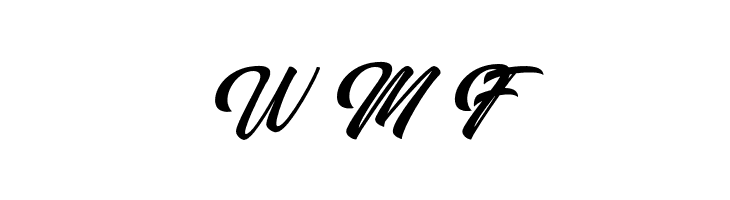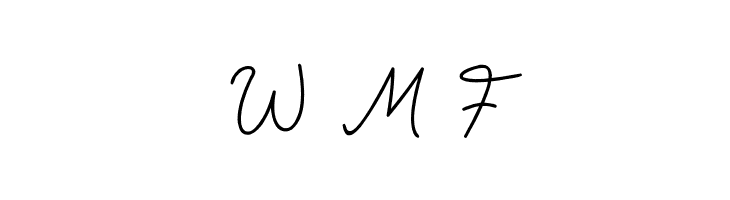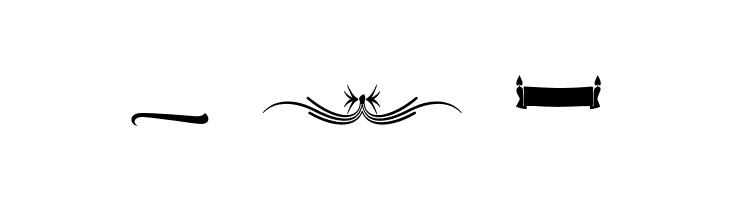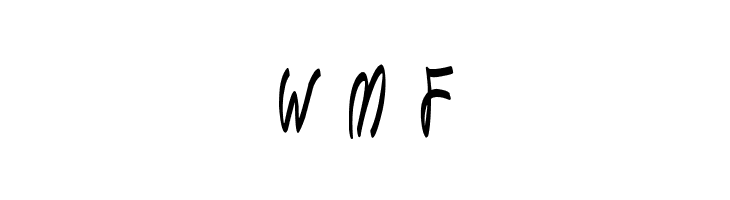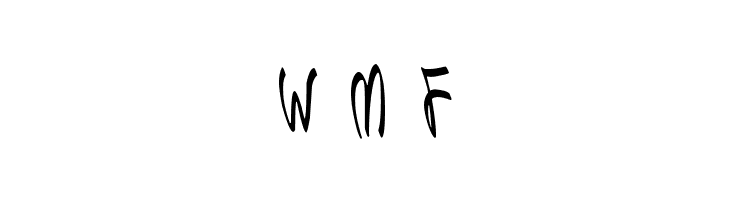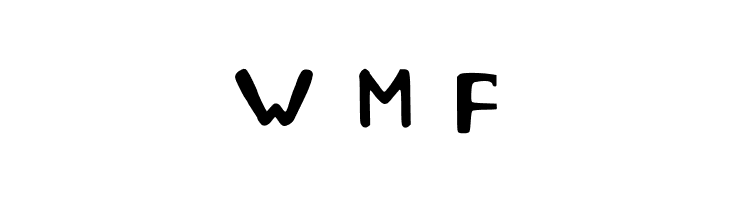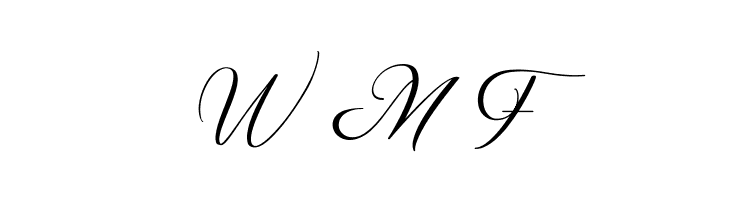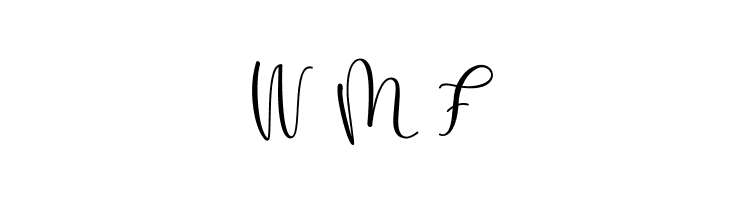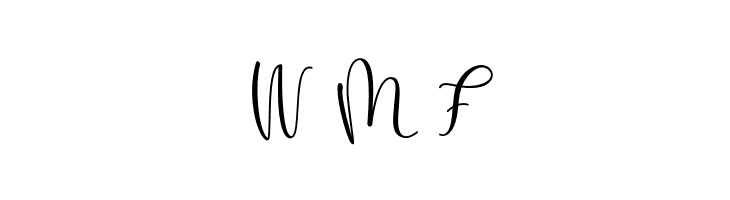
Hello Bunda Font
A playful, cursive font with a hand-drawn, whimsical style.
Restu Bundah Font
A bold, cursive font with interconnected, flowing characters.
Bunda Font
A playful, handwritten font with dynamic and fluid strokes.
Bunda Italic Font
A dynamic, italicized script font with a handwritten feel.
bundafont Font
A playful, bold, and hand-drawn style font with rounded edges.
Bunda Font
An ornate script font with intricate floral embellishments.
Bundaria Font
A stylish, cursive handwritten font suitable for invitations and decorative text.
Kasih Bunda Font
A sophisticated script font with flowing, cursive strokes and a handwritten aesthetic.
BundaSwash Font
Ornate decorative swashes and flourishes.